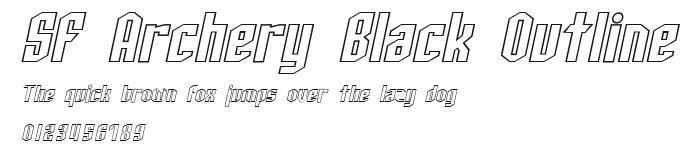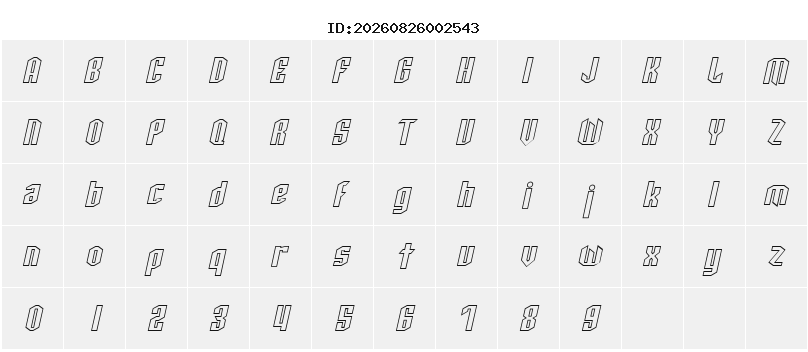
• Font Name: SF Archery Black Outline
• Font Style: Oblique
• Full Font Name: SF Archery Black Outline Oblique
• Designer: ShyFonts Type Foundry
About SF Archery Black Outline.ttf
SF Archery Black Outline.ttf is a modern, elegant sans-serif font designed for ultimate readability and visual harmony. Perfect for branding, headlines, web design, and print materials.